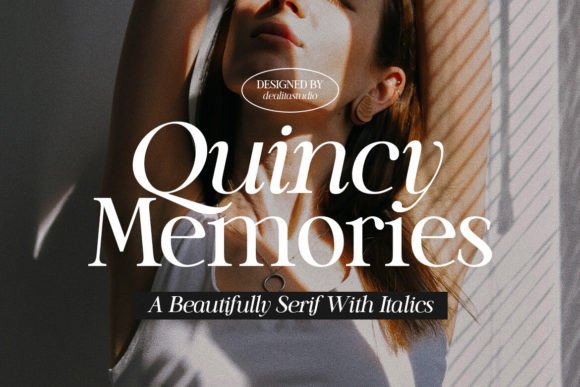
Introducing Quincy Memories Font - the ultimate serif typeface that will take your designs to the next level! Created by dealitastudio, Quincy Memories is the go-to font for all your editing needs. With its beautiful italics and captivating charm, this font is the perfect choice for any occasion.
Whether you're designing invitations, labels, logos, magazines, books, or greeting cards, Quincy Memories will add a touch of elegance and sophistication to your projects. Its timeless appeal makes it the ideal font for weddings, parties, and special events. Imagine the delight on your clients' faces when they receive an invitation adorned with Quincy Memories - it's sure to leave a lasting impression.
But Quincy Memories isn't just limited to formal occasions. It's also a versatile font that can be used in various advertising campaigns. From packaging designs to fashion and makeup branding, this font will effortlessly enhance your visual communication. Its classic yet modern look will make your products stand out from the competition and attract customers with its sheer beauty.
Quincy Memories is not just a font, it's a statement. It exudes confidence, elegance, and sophistication. With its smooth lines and impeccable details, it adds a touch of professionalism to any project. Whether you're a seasoned designer or just starting out, this font will elevate your work and make it shine.